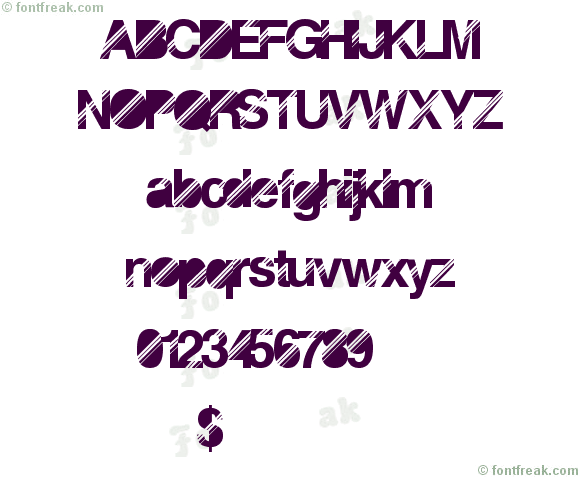
DiscoNight
DiscoNight by XEROGRAPHER FONTS is a striking display font that embodies the vibrant spirit of the disco era. This typeface features a bold and playful design, making it an excellent choice for projects that require a sense of energy and fun. The font showcases a unique combination of thick and thin strokes, creating a dynamic contrast that draws the eye. Its slightly irregular spacing adds a touch of whimsy, reflecting the carefree attitude associated with disco culture. Decorative elements, such as the playful curves and sharp angles, give DiscoNight a distinctive character that stands out in various applications.
Ideal for a range of creative projects, DiscoNight is perfect for eye-catching wedding invitations that aim to impress guests with a fun theme. It also excels in movie posters, particularly for films with a retro or nostalgic vibe, where it can evoke memories of lively dance floors. Additionally, this font works wonderfully for restaurant menus that wish to convey a sense of excitement and atmosphere, or for promotional materials in nightlife or entertainment venues.
What sets DiscoNight apart is its ability to blend nostalgia with contemporary design. This versatility allows it to be both a statement piece and a subtle background element, making it a must-have in any designer's toolkit. For those interested in adding this lively typeface to their collection, the DiscoNight font free download is a fantastic opportunity to elevate creative works with a touch of retro flair.